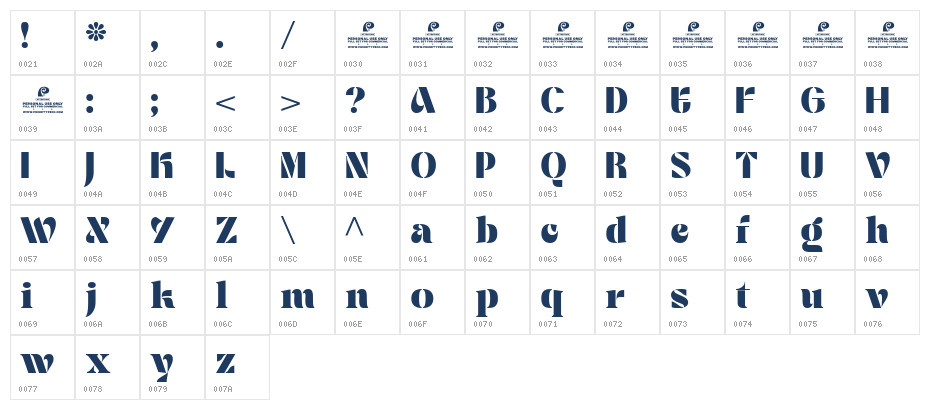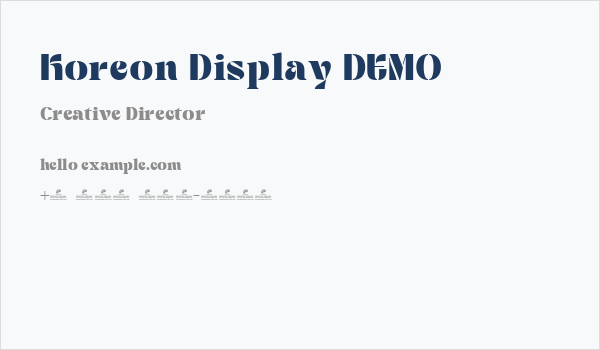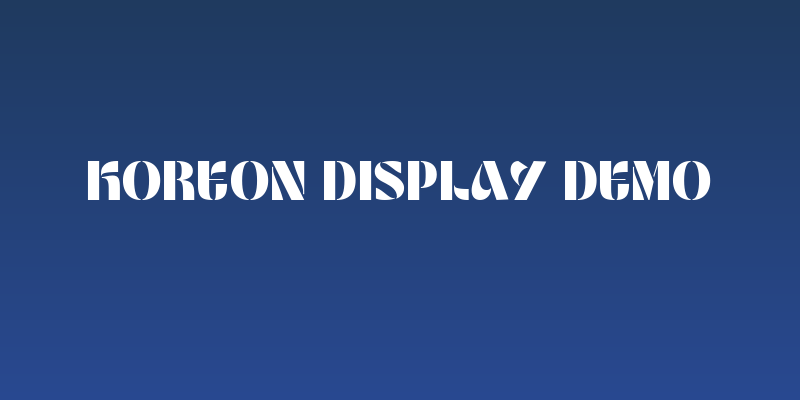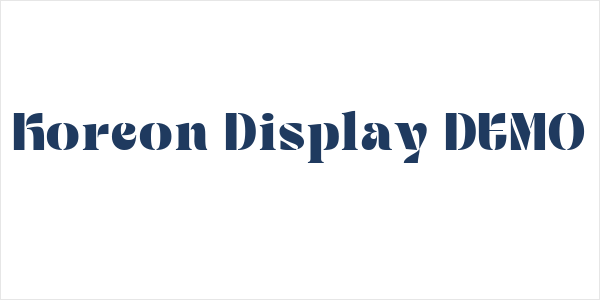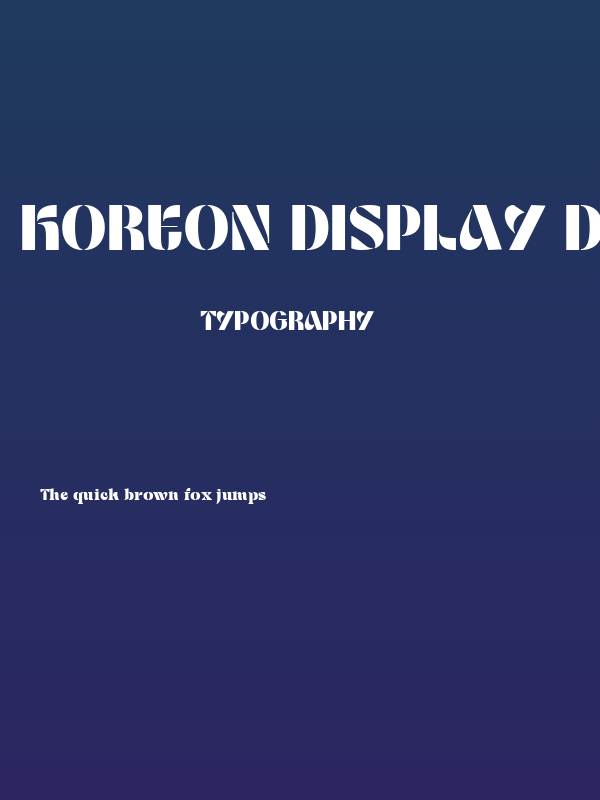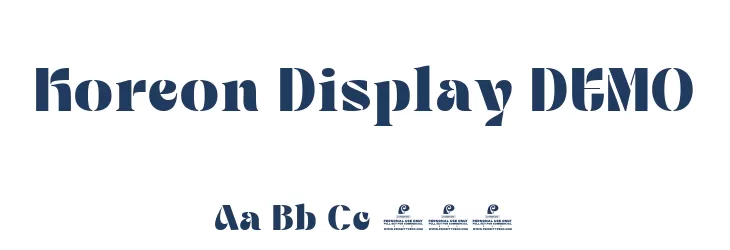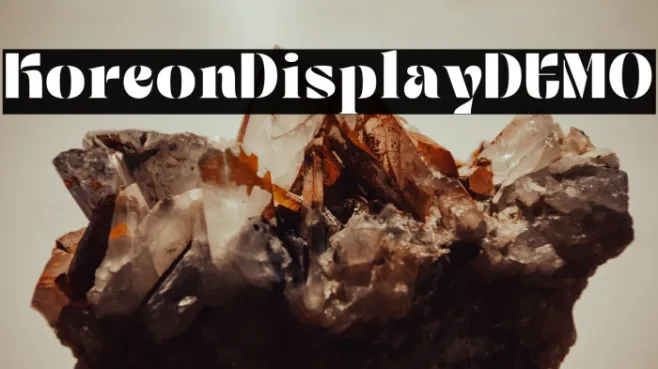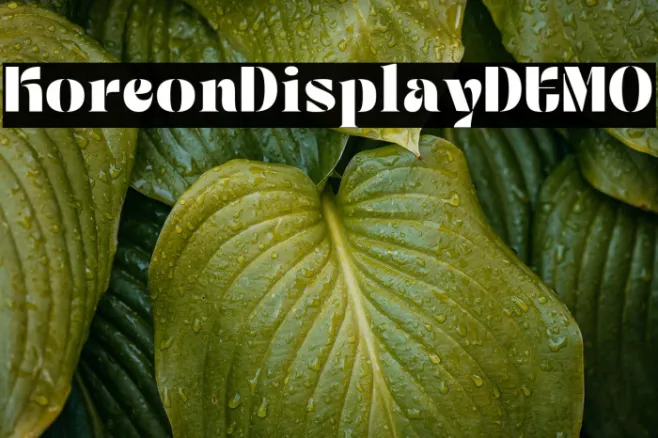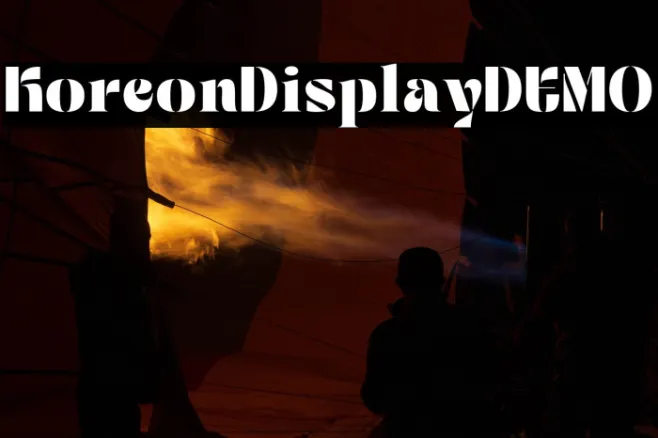
Koreon Display DEMO Font
Koreon Display DEMO Description
Bold, decorative serif font with a vintage and modern fusion, characterized by thick strokes and distinctive stylized features.
| Overall Style | Vintage, Modern |
| Use Case | Headlines, Logos, Posters, Branding, Packaging |